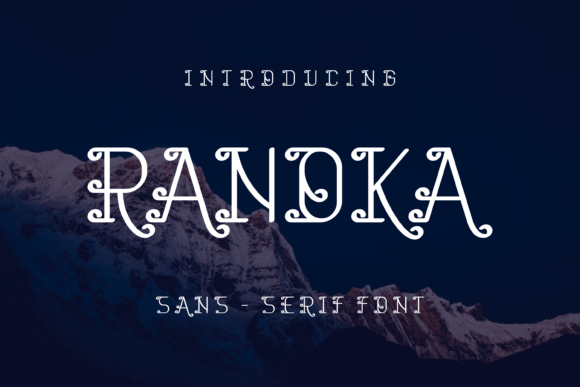
Step into the world of Ranoka Font, a captivating display font that dances with cool modernity, promising to transform your designs into captivating expressions. Its versatile nature effortlessly complements any theme, making it a treasure in your font arsenal. With Ranoka Font, your creations are destined to ascend, captivating audiences and leaving a lasting impression.
Unleash your creativity and watch as Ranoka Font elevates your logos, branding, and social media designs to new heights. Its clean lines and distinctive curves create a visual harmony that demands attention. Whether you're a seasoned designer or just starting, Ranoka Font is your key to unlocking a world of exceptional designs.
Imagine your logo, the face of your brand, adorned with the sleek sophistication of Ranoka Font. It will command attention, leaving an unforgettable mark in the minds of your customers. Ranoka Font possesses the uncanny ability to transform ordinary words into captivating statements, making your brand stand out from the crowd.
Dive into the world of social media and let Ranoka Font amplify your voice. Its captivating presence will make your posts shine, attracting engagement and leaving a trail of intrigue. Whether it's an inspiring quote, a product announcement, or a captivating story, Ranoka Font will elevate your words, making them resonate with your audience.
As a display font, Ranoka Font was born to shine in headlines and titles, captivating readers with its magnetic charm. Its distinct letterforms dance across the screen, drawing eyes and inviting curiosity. Use Ranoka Font to announce your latest blog post, introduce a new product, or simply share a captivating thought.
The Ranoka Font family is not just a collection of letters; it's an orchestra of visual artistry. Its characters harmonize beautifully, creating a symphony of elegance and style. Each glyph has been meticulously crafted to complement the next, ensuring that your designs flow with grace and cohesion.